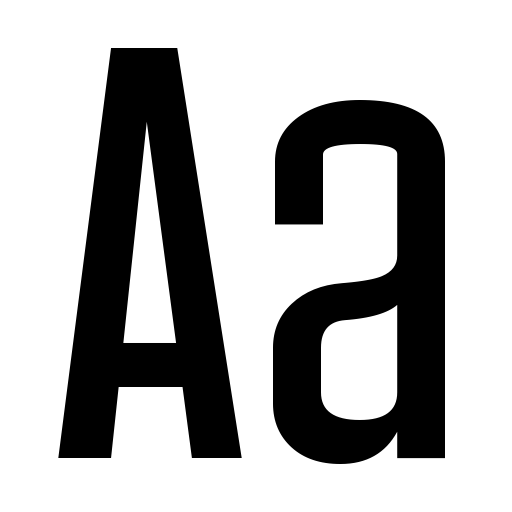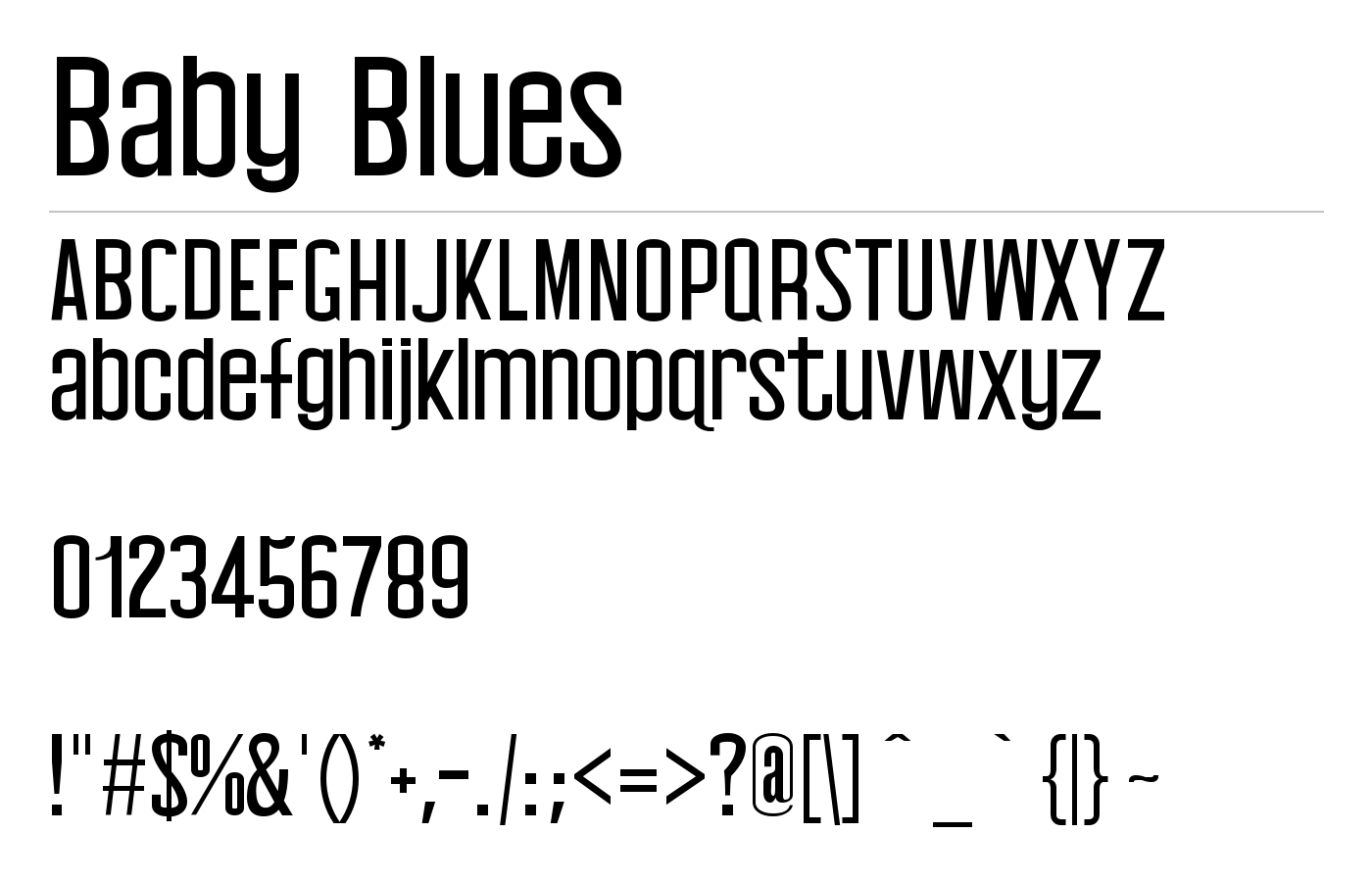
Baby Blues is a narrow, sans serif font with a modern and clean look, characterized by its tall x-height and consistent stroke weight. Its compact letterforms and minimal contrast give it a sleek, professional feel, making it ideal for headlines, branding, and other display uses where space efficiency and clear readability matter. This font conveys a contemporary, straightforward personality suitable for technology, fashion, and editorial design.
Baby Blues Font
About Baby Blues Font